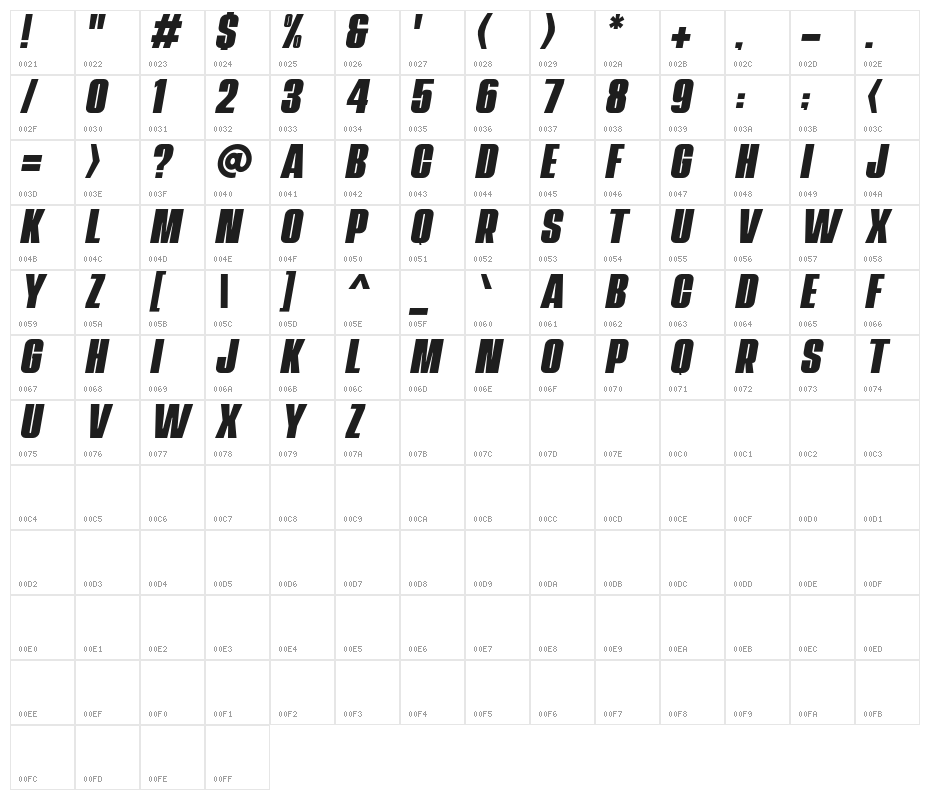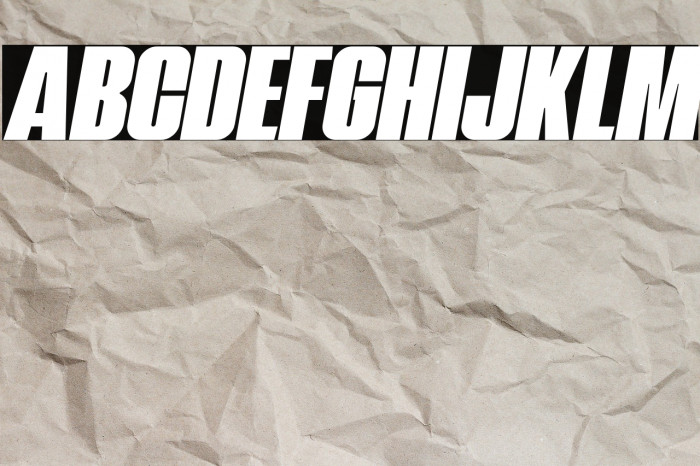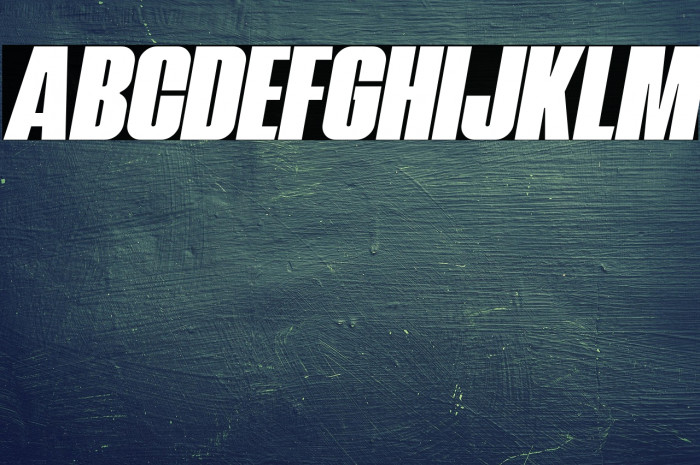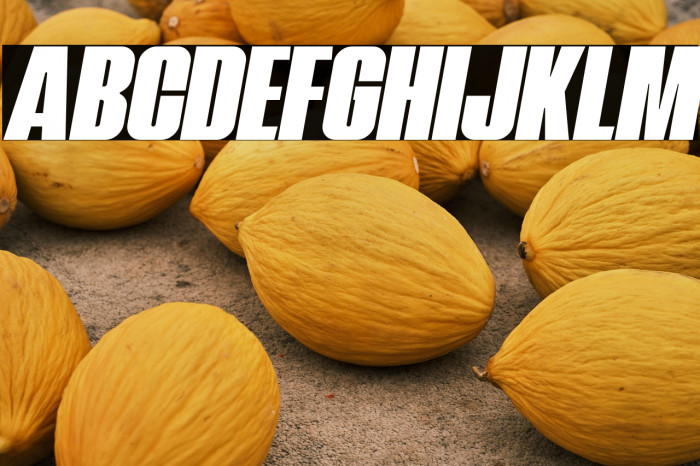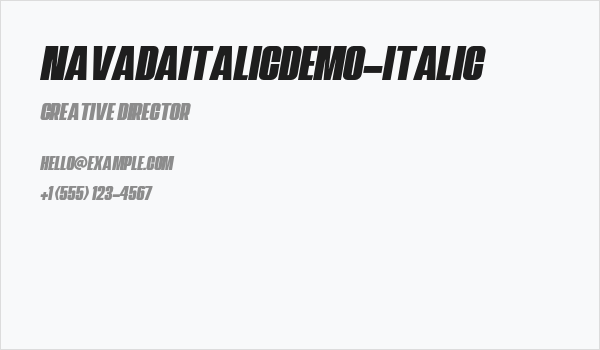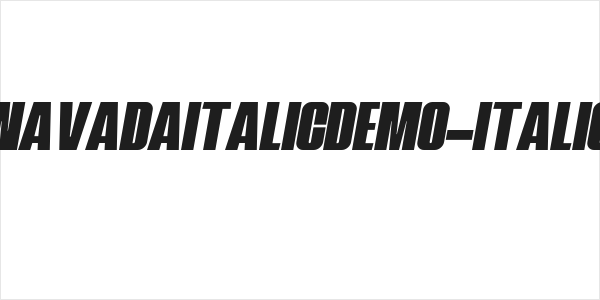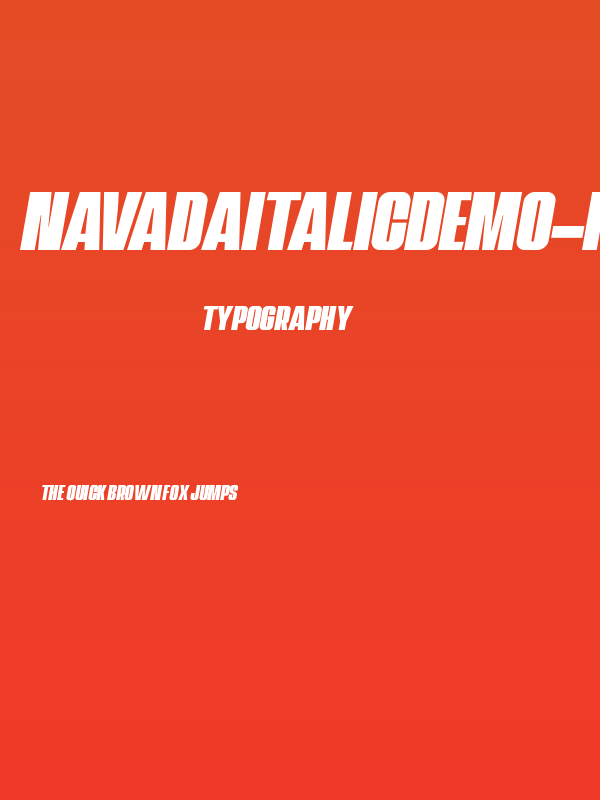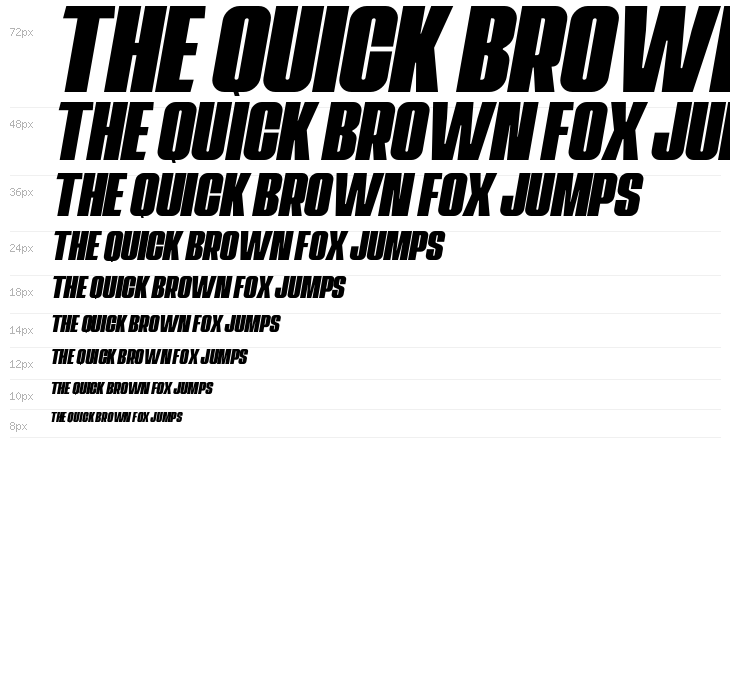
NavadaItalicDemo-Italic Font
NavadaItalicDemo-Italic Description
This font features a bold and dynamic style with a strong italic slant, giving it a sense of movement and urgency. The characters are thick and robust, with a condensed width that enhances its impactful presence. The uppercase letters are particularly striking, with a uniform height that maintains readability even at smaller sizes. The numbers and special characters share the same bold characteristics, ensuring consistency across all text elements. The overall design is modern and assertive, making it suitable for attention-grabbing headlines and impactful branding.
| Proposed Projects | Ideal for sports branding, dynamic posters, impactful headlines, and modern advertising campaigns. |